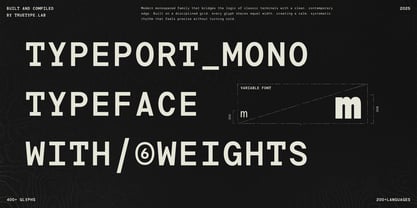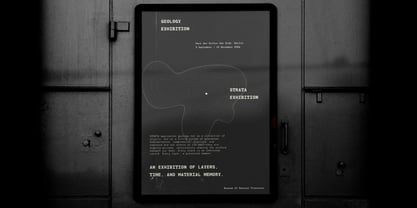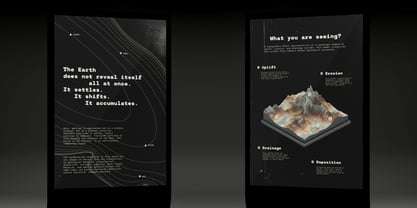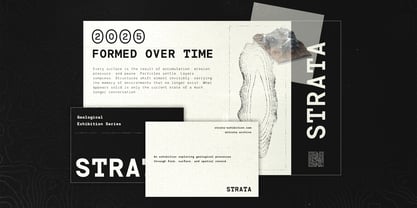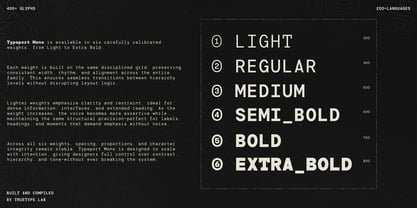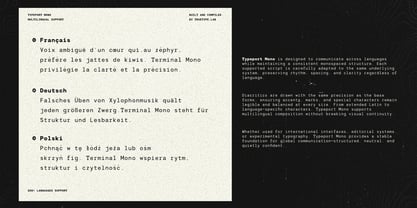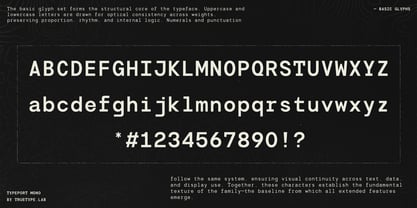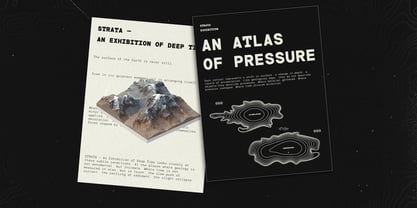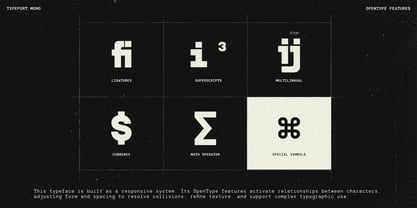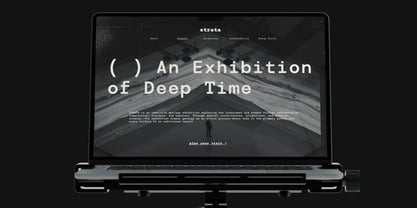
TRT Typeport Mono
by True Type Lab
The TRT Typeport Mono Font Family was designed by Yusilo Oktaprima Ardani and published by True Type Lab. TRT Typeport Mono contains 6 styles and family package options. More about this family
TRT Typeport Mono is a modern monospace typeface built on a disciplined grid system, designed to deliver clarity, structure, and calm precision. Featuring six weights and a variable font axis, it bridges the logic of classic terminals with a refined contemporary tone. KEY FEATURES - Modern monospace system typeface - 6 weights: Light → Extra Bold - Variable font with continuous weight axis - Consistent grid-based structure - 400+ glyphs - 200+ language support - Multiple numeral styles (regular, circled, filled) - Optimized for UI, editorial, data, and display use - Designed for clarity, rhythm, and hierarchy At True Type, we focus on creating expressive, functional, and purposeful typefaces crafted to elevate your visual storytelling.
Designers: Yusilo Oktaprima Ardani
Foundry: True Type Lab